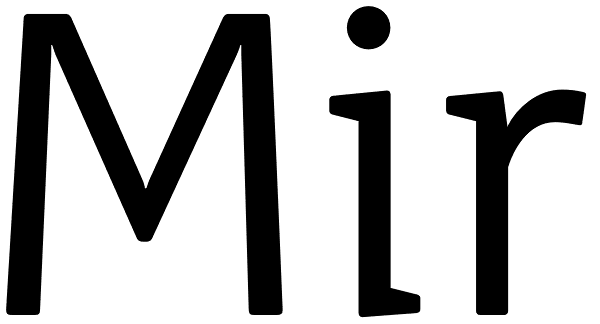
Mir
Мир is Mir. The Russian word Мир (Mir) means both World and Peace. The rendezvous of the two terms seems quite unique and utopistic today, but it is comforting to see that it was natural at some time deep down in Russian history. Bits of both...